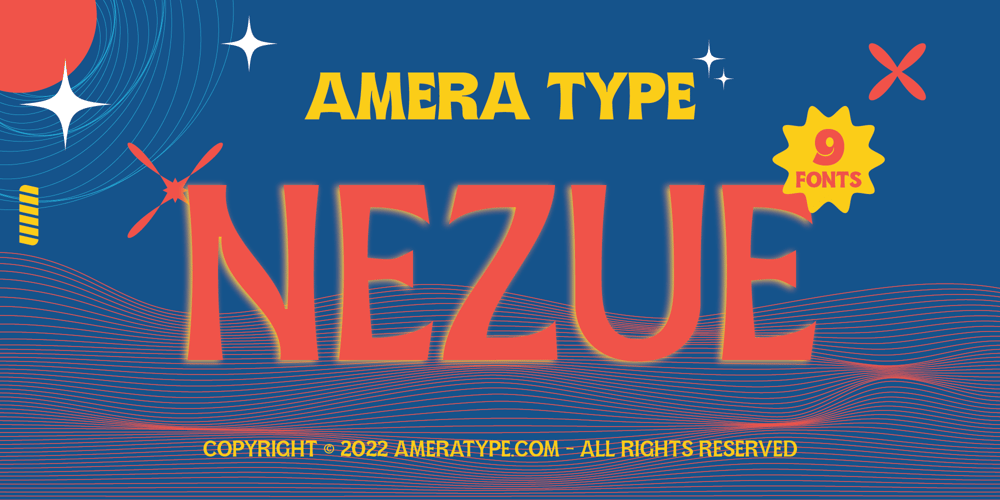
AT Nezue Font Family was designed by Cahyadi Ikhsan and published by Amera Type. AT Nezue contains 9 styles and family package options. Nezue is our first font family consisting of neat and elegant lowercase and uppercase letters, comes with 9 styles (Thin, Extra Light, Light, Regular, Medium, Semi Bold, Bold, Extra Bold, and Black)Formed in a modern style that can help your visual branding look younger, detailed letterforms for optical contrast can make this font even more attractive